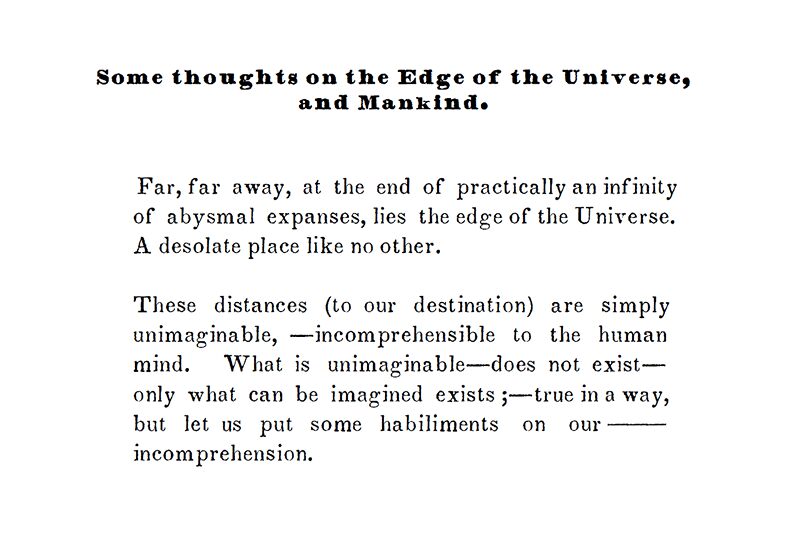
Southern Literary Mess font family by Gary Stephens is a free font family that features 2 font styles. The classic serif typewriter family was likely influenced both by traditional serif typewriter styles as well as Japanese calligraphy. Use it for your personal literary work and non-commercially to cover a wide range of use cases.
The elegance of Japanese calligraphy paired with the authority of classic serif characters gives Southern Literary Mess depth and charm. Use it for books and magazines, as well as official and unofficial documents. Posters, headings, branding, advertising campaigns, and logos can also be made using it.
Southern Literary Messenger font is a revival of a defunct 1800s font created by Gary Stephens. This unique typeface captures the essence of its historical roots while offering a modern touch.